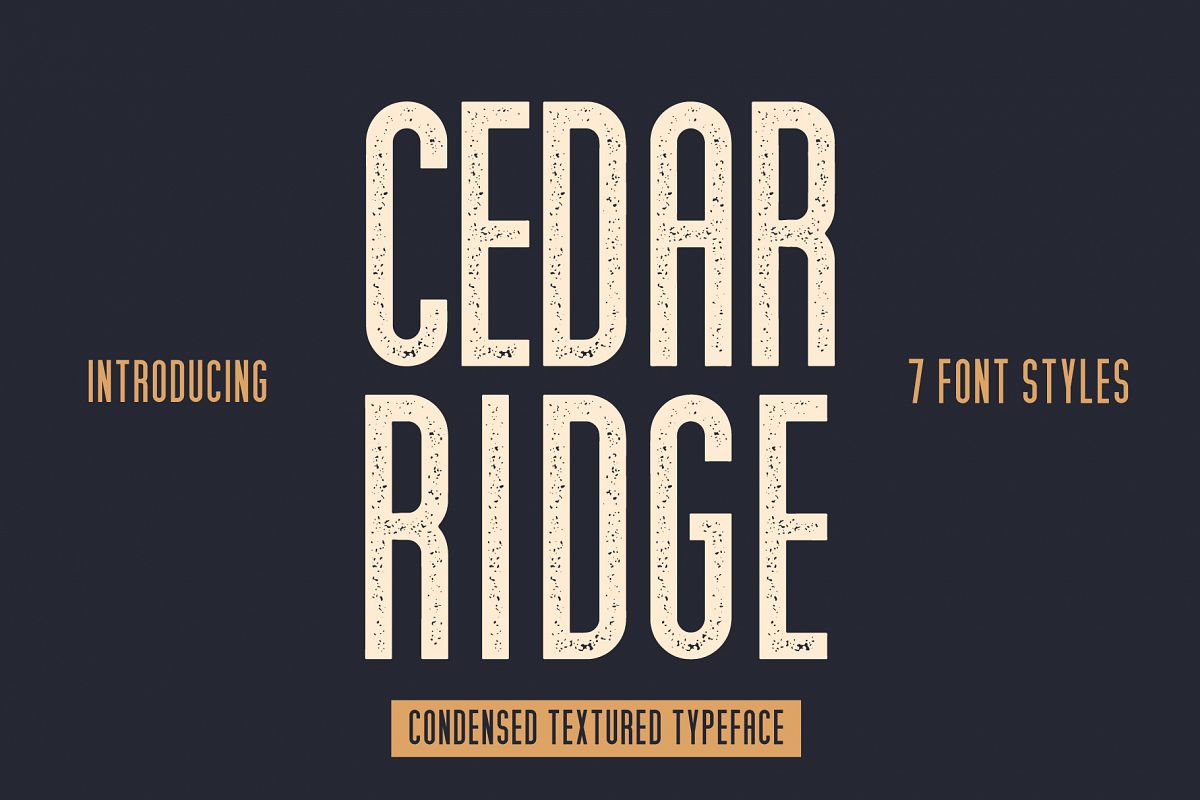
Cedar Ridge
Cedar Ridge is a condensed textured typeface that comes in 7 different styles. Works great as either a logo font or as the accompanying secondary text. Includes Uppercase, numerals and punctuation. SEVEN font styles
• Regular
• Round
• Alt
• Outline
• Italic
• Rough
• Printed